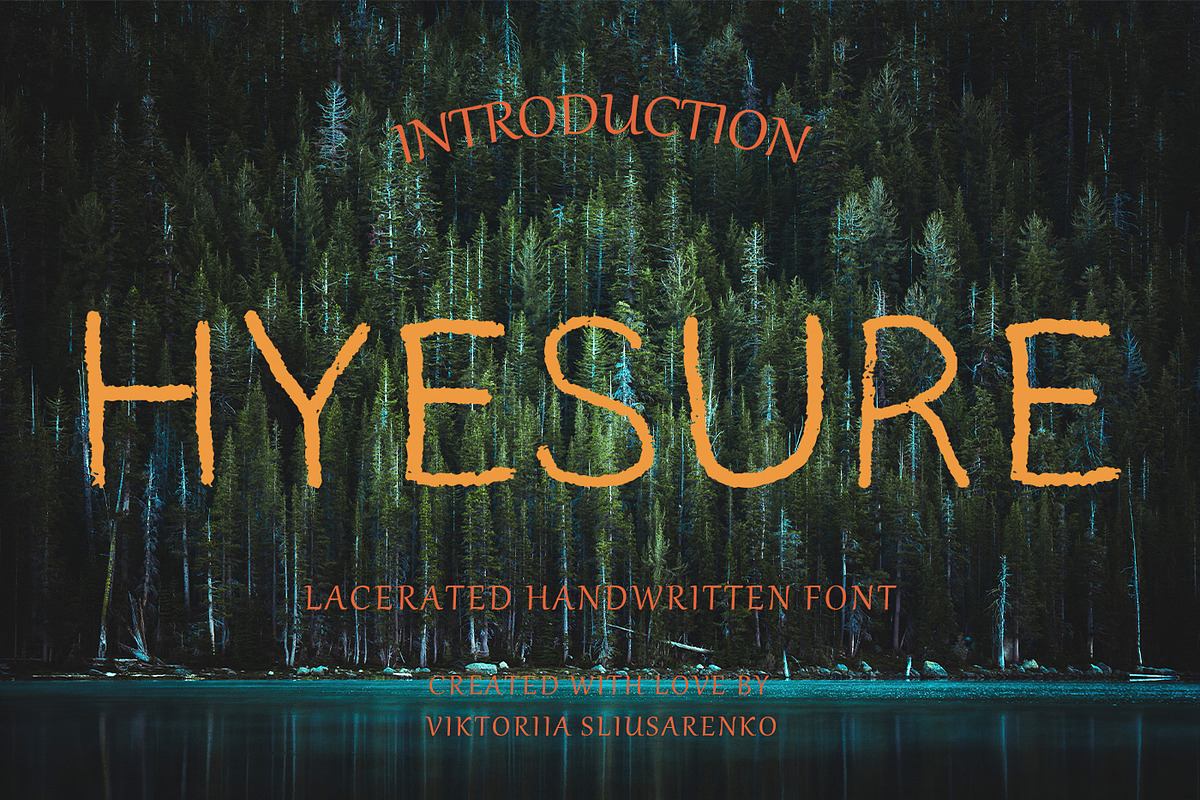
HYESURE - Lacerated Handwritten Font Free Download
HYESURE - Lacerated Handwritten Font Free Download is a raw, expressive typeface that combines edgy, handwritten elements with a lacerated, torn effect. Perfect for horror-themed projects, grunge branding, album covers, movie posters, or any design that requires a bold, rebellious touch.
The jagged edges and distressed strokes create a powerful visual impact, giving your text a sense of urgency and defiance. Whether you're working on gritty art, a rebellious brand, or a dark, moody design, HYESURE brings a unique and striking character to your work.